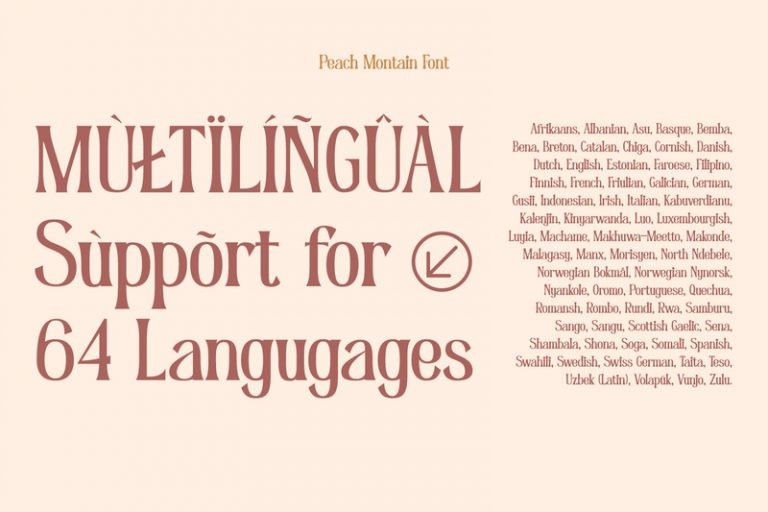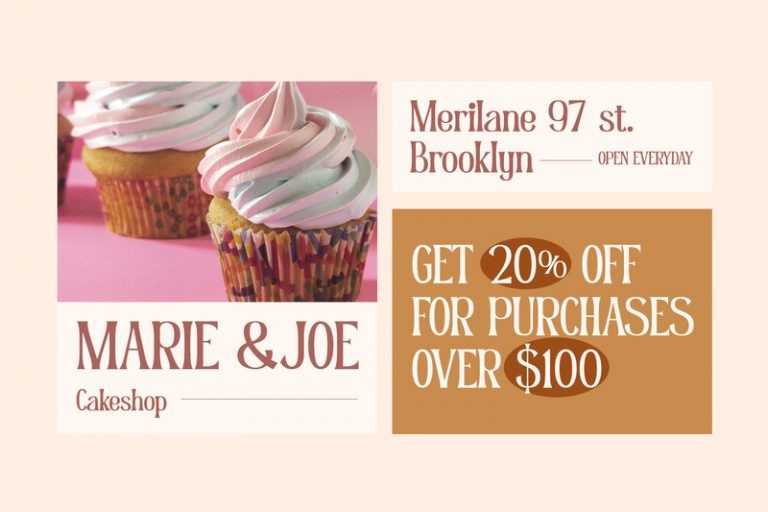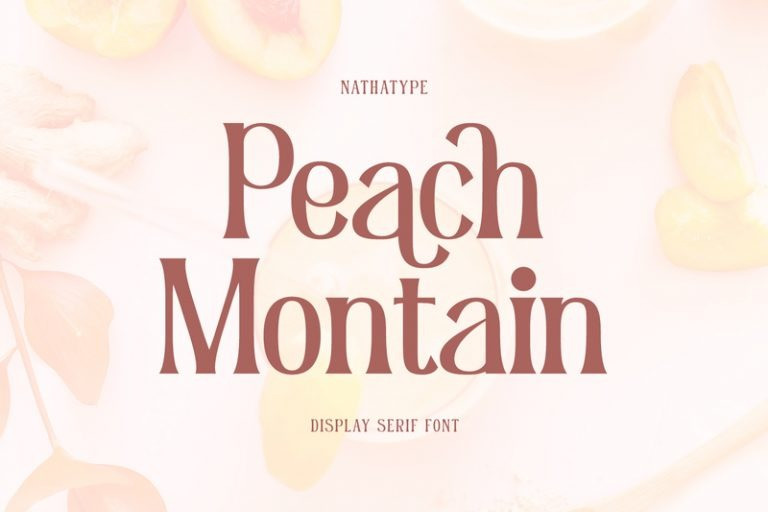
Peach Montain Font
Peach Mountain Serif Font is an elegant, modern, multipurpose display serif font needed by designers today. The simple letters’ morphology has relatively similar proportions. Furthermore, its high contrasts and wide spaces are truly legible with which you can apply for any text sizes. In addition, you can make use of this font’s available interesting features to beautify your designs.